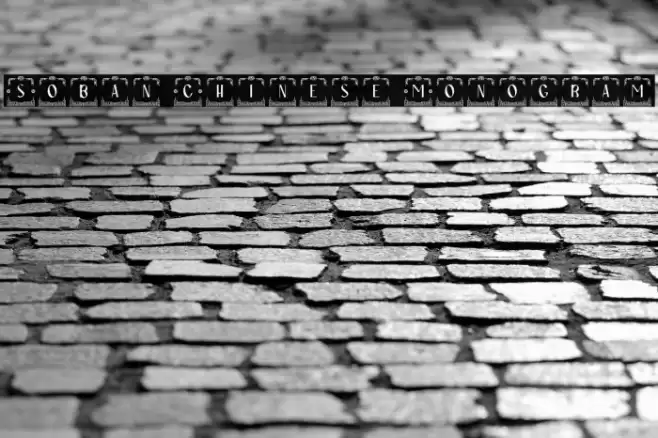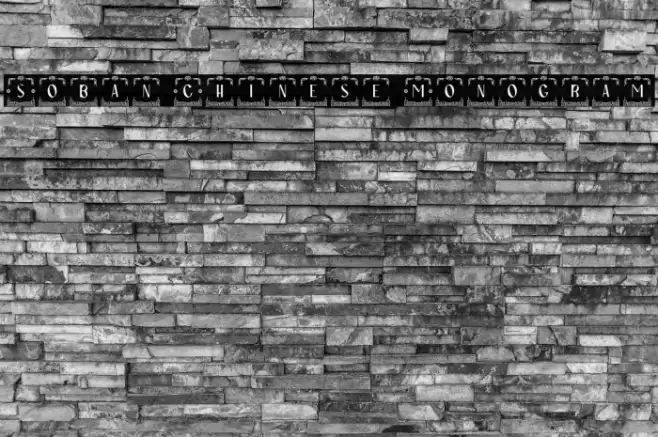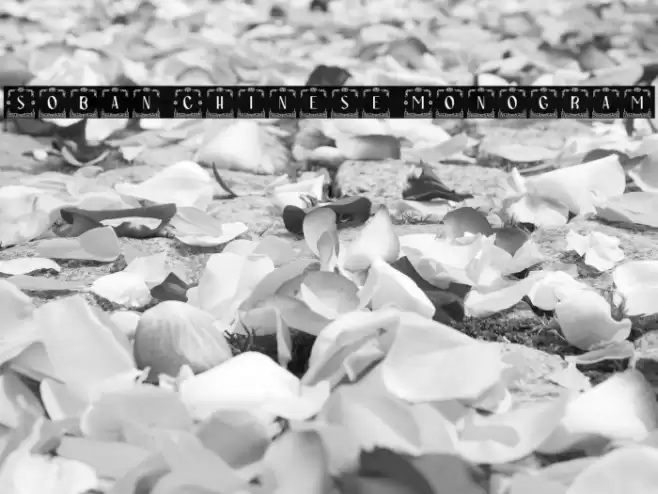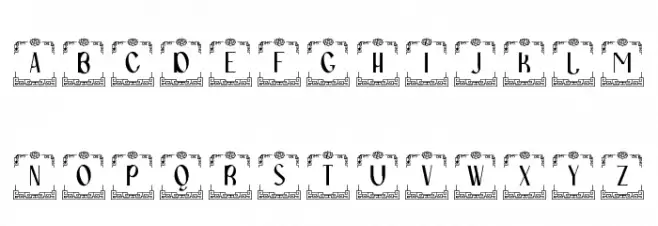
Soban Chinese Monogram Font
Soban Chinese Monogram Description
This font features a decorative style with intricate patterns surrounding each character, reminiscent of traditional Chinese motifs. The uppercase letters are enclosed in ornate frames, giving a monogram-like appearance. The design is highly detailed, with symmetrical embellishments that add a sense of elegance and formality. The characters are bold and distinct, making them stand out against the decorative background. This font is ideal for projects that require a touch of cultural sophistication and artistic flair.
A decorative font with intricate Chinese-inspired motifs and monogram-style frames from Uncategorized fonts.
- Font: Soban Chinese Monogram
- Proposed Projects: Ideal for wedding invitations, cultural event posters, luxury branding, and decorative monograms.
- Contrast: High
- Use Case: Logos, Invitations, Posters